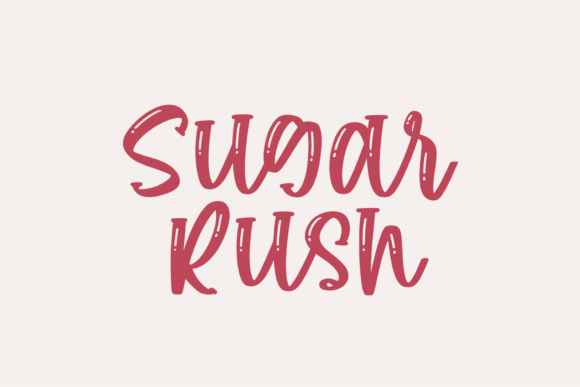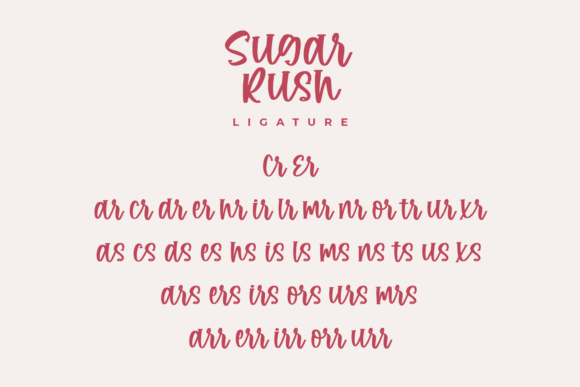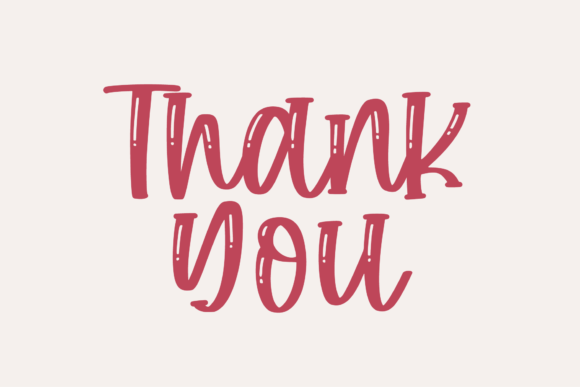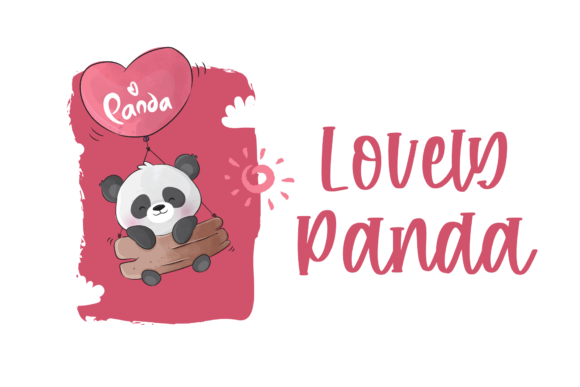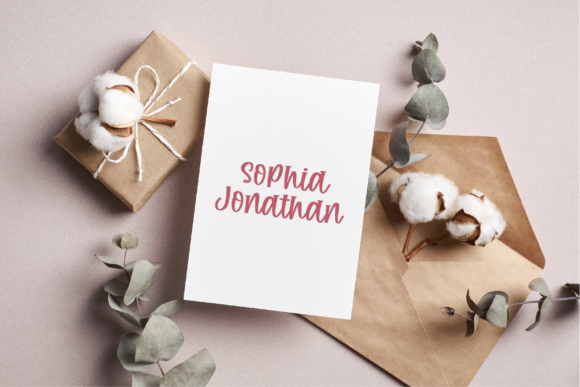
Sugar Rush Font
About Sugar Rush Font
Sugar Rush is an elegant and dainty handwritten font that features sweet and delicate swashes. This original look will appeal to a wide range of crafty ideas, from letterheads and titles, to stationery.